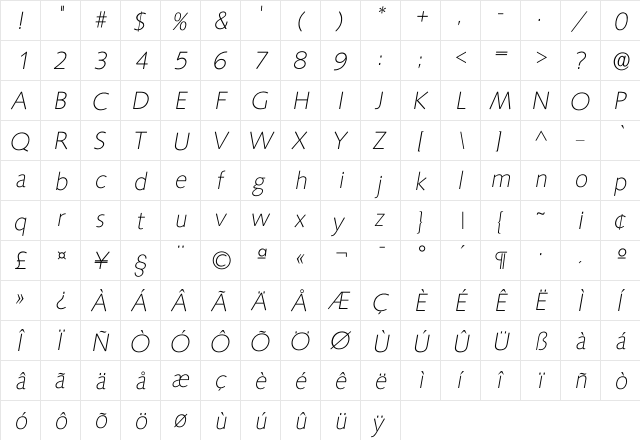
Isaxony Xlight
Design Context for Isaxony Typeface
Isaxony offers clean, dependable letterforms without strong stylistic allegiance, making it a practical choice for designers who need flexibility. The delicate stroke weight brings airiness and refinement to layouts.